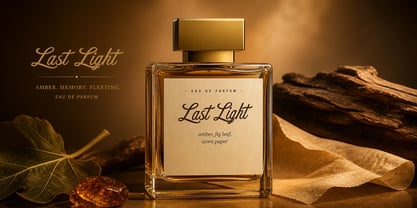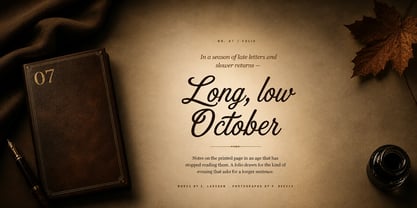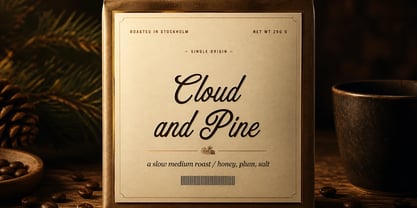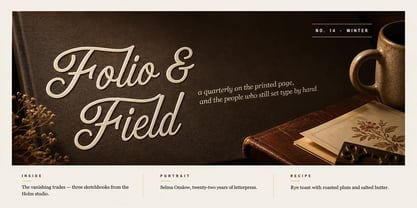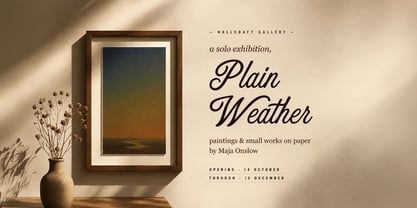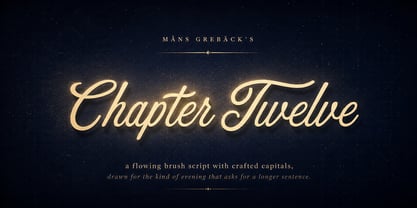
Chapter Twelve
by Mans Greback
Chapter Twelve is a flowing brush script with crafted capitals and clear stroke contrast.
The lowercase carries thick downstrokes and lighter joining curves, giving the hand a calligraphic rhythm rather than a casual monoline feel. Capitals stand upright with restrained swashes — enough to finish a word, not so much that they crowd one another. The italic deepens the slope; the bold pushes the downstrokes heavier while keeping the same brushed cadence across the family.
It belongs on a printed cover, a packaging label, or any layout where the typography is meant to set the tone with a single line.
The font is built with advanced functionality and guaranteed top-notch quality, containing stylistic and contextual alternates, ligatures and more automatic and manual features; all to give you full control and customizability.
It has extensive lingual support, covering all Latin-based languages, from North Europa to South Africa, from America to South-East Asia. It contains all characters and symbols you'll ever need, including all punctuation and numbers.